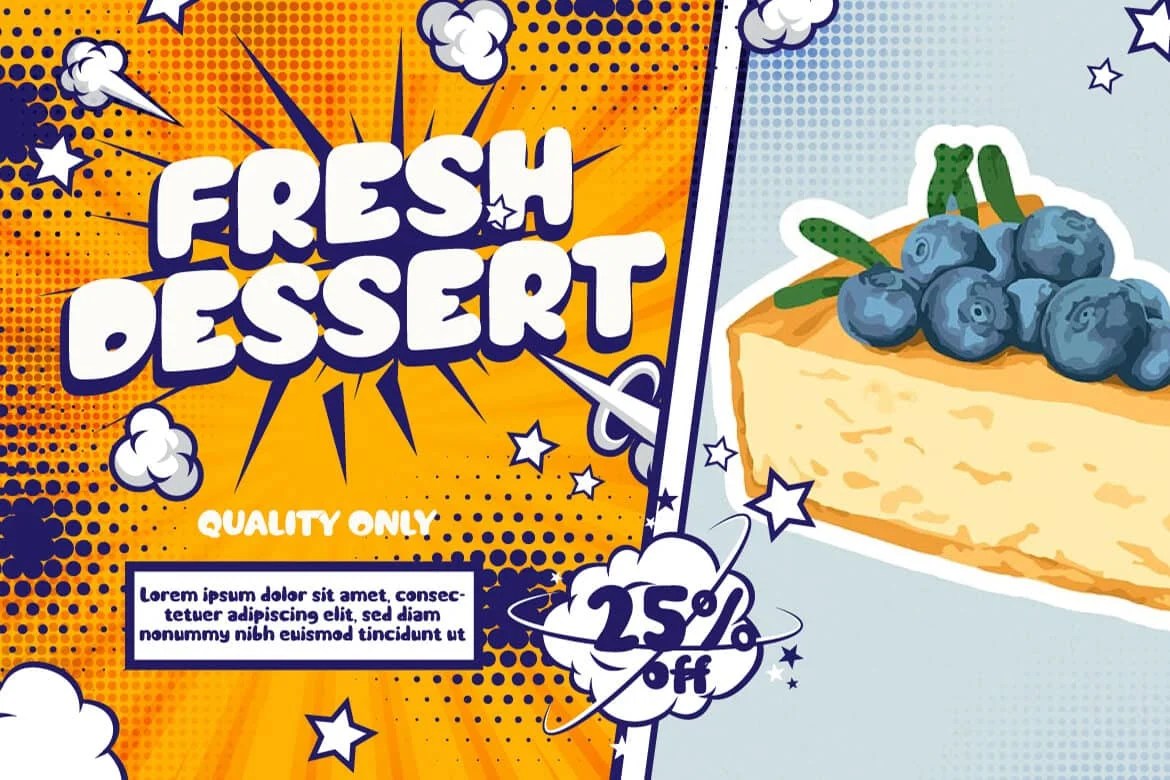
Good fonts for book titles have one job above all else: get noticed on a crowded shelf or a thumbnail-sized cover thumbnail, without becoming illegible in the process. Here are six Twinletter display fonts built with that kind of bold presence, each with a slightly different personality.
Cover typography can make or break a first impression — font choice signals genre and tone before a reader even reads the description, which is exactly why picking generic type is a missed opportunity. Good fonts for book titles need to hold up at both full size and thumbnail size, since most readers now discover books online before ever holding one.
Miguna — described as “relaxed, clean, and charming,” shipping with alternates from the thinnest to the thickest weight, useful for a title that needs to flex across a full series.
Gone Hills — a “whimsical” typeface built to feel “natural and attractive,” suited to a warmer, more approachable title treatment.
Jaxell — “whimsical” with “distinct and unique qualities,” described as working well both as a large title and as sentence text.
Ageer — a “cheerful, soothing” typeface with a “delightful theme,” suited to lighter, more relaxed genres.
Dollan — described as “distinctive and eye-catching” with a “cheerful, unique, energetic” vibe, a strong pick for a title that wants real shelf presence.
Star Player — built around a “powerful and bold” idea, with an “elegant and flexible shape” that stays strong and clear at both title and sentence-text size.
Beyond those individual leanings, all six fonts for book titles share the same broader use case and feature set. Twinletter positions all of them for games, sporting events, branding, banners, posters, movie titles, quotes, and logotypes — so any of the six can double as a wider brand or marketing font, not just a cover title.
Since all six fonts for book titles come from the same product generation, the fastest way to narrow it down is to set your actual title text in two or three type testers side by side and check it at thumbnail size, not just full size.
How do I know if a font will work at thumbnail size, not just full size? Test the actual title text in the type tester at a small size before committing — a font can look striking at full resolution and still blur together once shrunk to an online store thumbnail.
Can these fonts be used for anything besides book titles? Yes — all six are also positioned for games, sporting events, branding, banners, posters, quotes, and logotypes, alongside book title and cover design.
Do these fonts support languages other than English? Yes, all six fonts for book titles include multilingual support across 19 European languages, making them usable for international editions and translated covers.